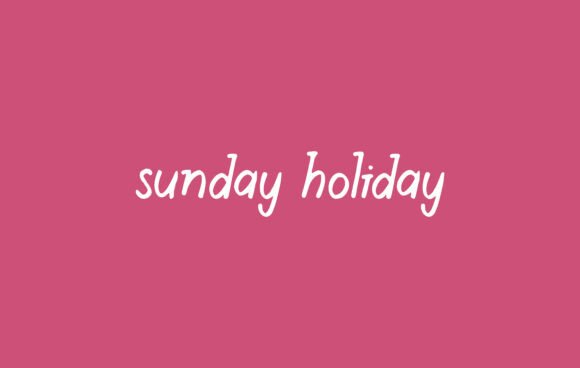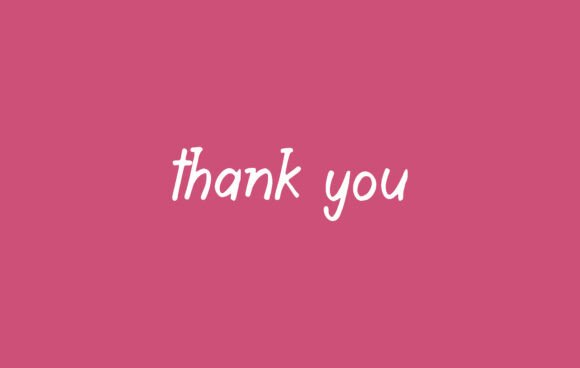
Bailenson Font: Elevate Your Designs with a Romantic Touch
In the world of typography, a well-crafted font can make all the difference in elevating your creative projects from ordinary to extraordinary. Introducing Bailenson Font, an authentic handwritten font that exudes a romantic touch, perfect for designers and crafters looking to add a touch of elegance to their work.
The Charm of Bailenson Font
Bailenson Font is an expertly designed typeface that boasts a unique, handwritten charm. Its authentic feel makes it an instant favorite among designers and crafters alike. With its romantic touch, this font has the potential to take your creative ideas to new heights, making it perfect for a wide range of design projects.
Legibility and Versatility
One of the standout features of Bailenson Font is its exceptional legibility. Whether used as a title or body text, this font looks great and is easy to read. This versatility makes it an excellent choice for various design applications, from magazine headlines and social media graphics to branding, wedding invitations, and greeting cards.
Design Applications
Bailenson Font’s versatility knows no bounds. Here are some design applications where this font truly shines:
- Magazine Headlines: Add a touch of sophistication to your magazine headlines with Bailenson Font’s elegant, cursive script.
- Social Media Graphics: Elevate your social media presence with eye-catching graphics featuring Bailenson Font’s romantic, handwritten style.
- Branding: Establish a strong brand identity with Bailenson Font’s unique and memorable aesthetic.
- Wedding Invitations: Make your wedding invitations truly special with Bailenson Font’s elegant, cursive script.
- Cards and Stationery: Add a personal touch to your cards and stationery with Bailenson Font’s charming, handwritten style.
Why Choose Bailenson Font?
With so many fonts available, why choose Bailenson Font? Here are just a few reasons why designers and crafters love this font:
- Unique and Authentic: Bailenson Font’s handwritten style is both unique and authentic, making it stand out from more generic fonts.
- Romantic Touch: Add a touch of romance to your designs with Bailenson Font’s elegant, cursive script.
- Exceptional Legibility: Bailenson Font is easy to read, making it perfect for both title and body text.
- Versatile: Use Bailenson Font in a wide range of design applications, from print to digital media.
Tips for Using Bailenson Font
To get the most out of Bailenson Font, here are a few tips:
- Experiment with Sizes: Bailenson Font looks great in various sizes, from large headlines to smaller body text.
- Pair with Other Fonts: Combine Bailenson Font with other fonts to create a unique and visually appealing design.
- Use in Digital Media: Bailenson Font is perfect for digital media, including social media graphics, email signatures, and website headers.
In conclusion, Bailenson Font is an exceptional handwritten font that adds a romantic touch to any design project. Its unique, authentic style, exceptional legibility, and versatility make it a favorite among designers and crafters. Whether you’re working on a magazine headline, social media graphic, or wedding invitation, Bailenson Font is sure to elevate your creative ideas to new heights.